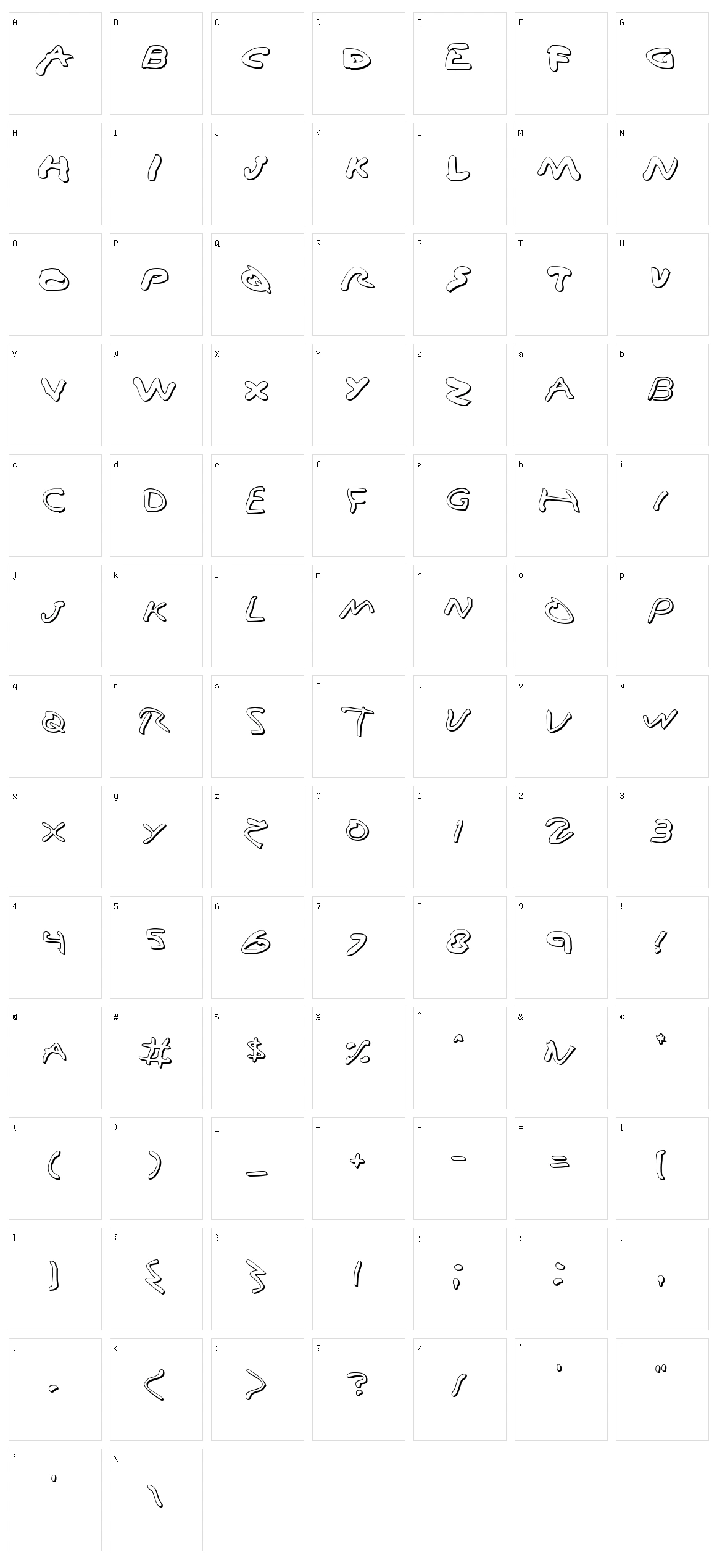
This font comes with the following 2 versions: Regular and 3D.
Note: the upper case of the letters in this font are bolded compared to the lower case letters. To get the stained, uneven look (which increases the feel of "evilness") write in the lower case, then go back and change a few letters here and there with the upper case. This will simulate the look of a bad fountain pen that's clotting.